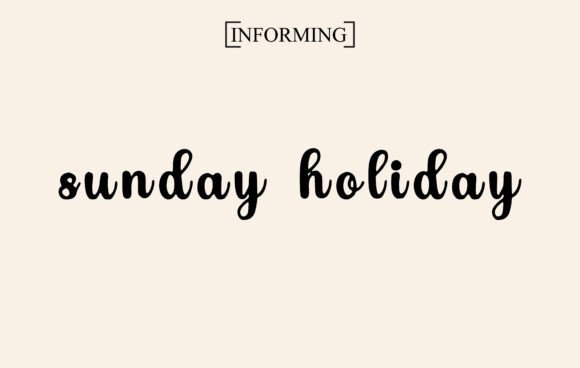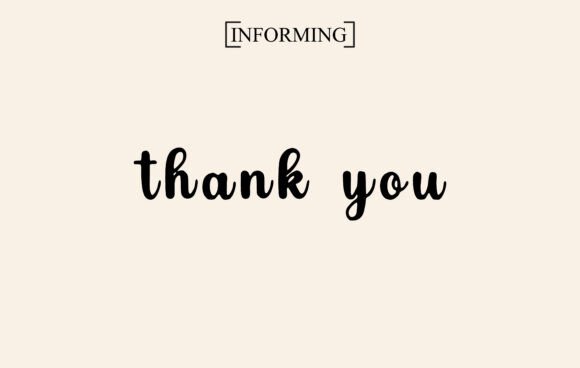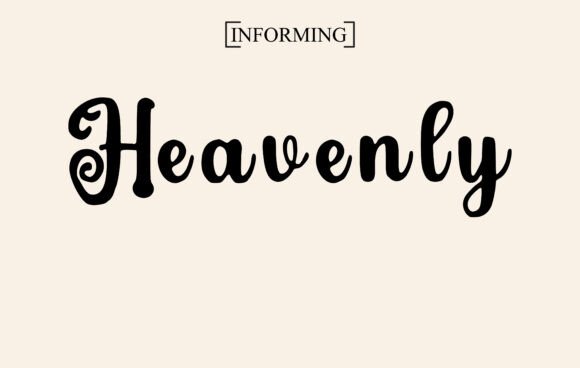
Heavenly Threads Font: Elevate Your Designs with Elegance and Versatility
In the world of design, the right font can make all the difference. It’s the perfect blend of style, legibility, and personality that can elevate your creative projects from ordinary to extraordinary. If you’re on the hunt for a font that embodies elegance, versatility, and a touch of heavenly charm, look no further than the Heavenly Threads Font. This exquisite font is designed to be a true favorite among designers and crafters, offering the potential to take your creative ideas to the highest level.
Designed for Versatility
Heavenly Threads Font is crafted with versatility in mind. Its design ensures that it is not only legible but also looks great whether used as a title or body text. This flexibility makes it an ideal choice for a wide range of design projects. From the bold headlines of magazine covers to the intimate details of wedding invitations, this font adapts seamlessly, bringing a touch of sophistication and charm to any design.
Perfect for a Multitude of Designs
The applications of Heavenly Threads Font are as diverse as they are exciting. Here are just a few ideas where this font truly shines:
- Magazine Headlines: Grab the attention of your readers with stylish and readable headlines that set the tone for your publication.
- T-Shirts and Apparel: Create eye-catching and unique designs for clothing and accessories that stand out in a crowd.
- Social Media Graphics: Enhance your social media presence with beautifully designed posts and stories that reflect your brand’s personality.
- Branding: Establish a strong brand identity with a font that communicates elegance and professionalism.
- Wedding Invitations and Cards: Add a personal touch to your wedding invitations, greeting cards, and other stationery with a font that exudes love and sophistication.
Why Choose Heavenly Threads Font?
Choosing Heavenly Threads Font for your design projects comes with numerous benefits:
- Legibility: Despite its elegant and somewhat whimsical appearance, this font remains highly legible, ensuring your message is always clear.
- Elegance: It adds a touch of sophistication to any design, making it perfect for projects that require a bit of luxury and charm.
- Versatility: Its adaptability across various design projects means you can use it across your portfolio, from digital content to print materials.
- Creativity: With Heavenly Threads Font, you can unlock new creative possibilities and bring a fresh perspective to your designs.
Tips for Using Heavenly Threads Font
To make the most of Heavenly Threads Font, consider the following tips:
- Experiment with Sizes: While it’s elegant in larger sizes, it remains legible and impactful in smaller sizes as well, making it perfect for body text.
- Play with Colors: This font pairs well with a variety of colors. Don’t be afraid to experiment and find the perfect combination that matches your design’s mood.
- Mix and Match: Combine Heavenly Threads Font with other fonts for a unique look. Its elegance pairs well with both modern and traditional fonts.
Heavenly Threads Font is more than just a typeface; it’s a design companion that can help you bring your creative visions to life. Its elegance, legibility, and versatility make it an excellent choice for designers and crafters looking to add a touch of sophistication and charm to their projects. Whether you’re working on a magazine cover, a wedding invitation, or a social media graphic, Heavenly Threads Font has the potential to elevate your designs to new heights. So why wait? Explore the possibilities with Heavenly Threads Font today and discover how it can transform your creative projects.